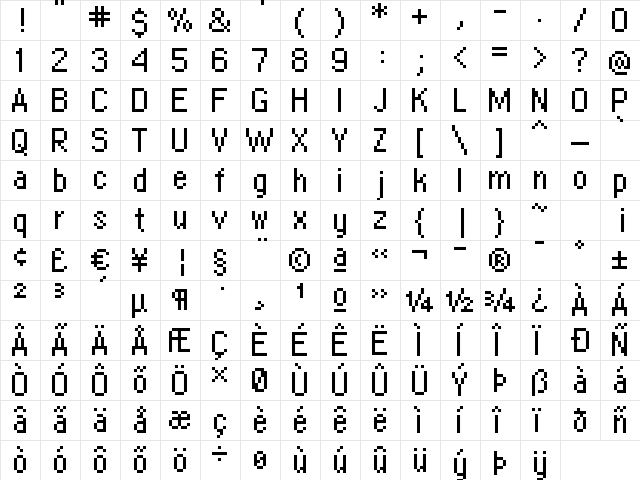
copy 08_55 Regular
| Foundry | Adobe Systems Incorporated |
| Designer | Craig Kroeger |
Design Context for copy 08_55 Typeface
copy 08_55 is a composed and adaptable typeface that performs quietly and consistently across a wide range of design contexts.